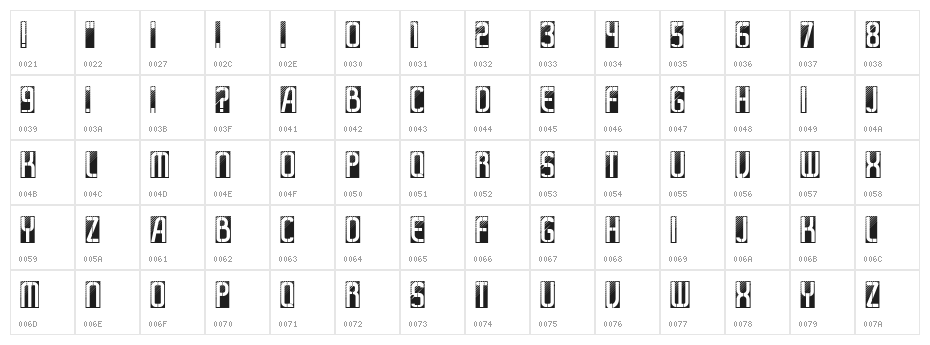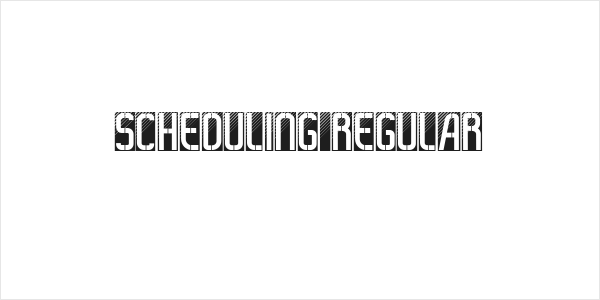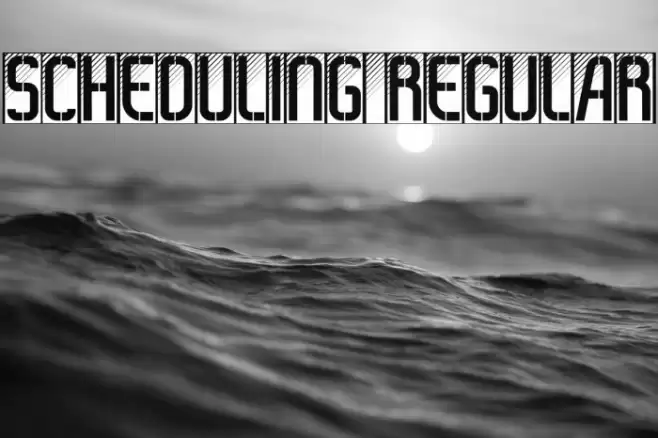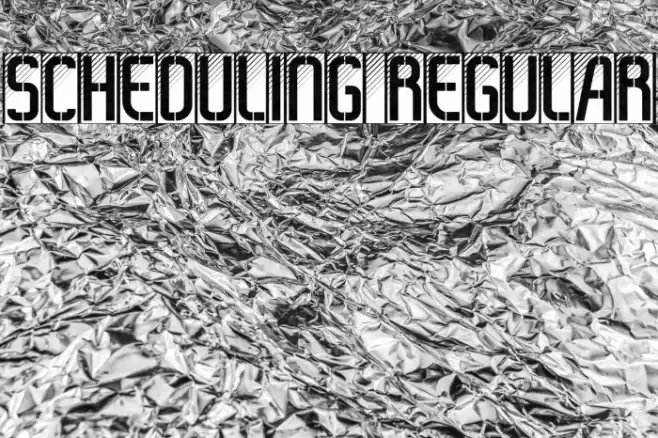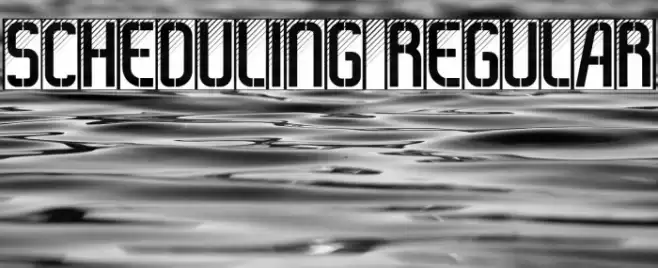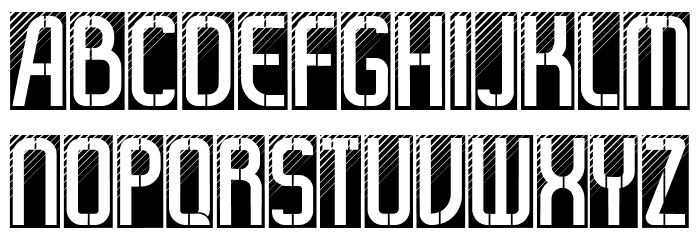
Scheduling Regular Font
Scheduling Regular Description
This font features a bold, geometric design with a distinct three-dimensional effect. Each character is enclosed in a rectangular frame, creating a striking visual impact. The letters are uppercase and numerals are included, all sharing a consistent style that emphasizes vertical lines and sharp angles. The font has a modern, industrial feel, with a high contrast between the thick and thin strokes. The unique shading adds depth and dimension, making it ideal for attention-grabbing designs.
| Proposed Projects | This font is perfect for poster designs, branding projects, and any creative work that requires a modern, industrial aesthetic. It can also be used effectively in digital media, such as video game interfaces or tech-related graphics. |